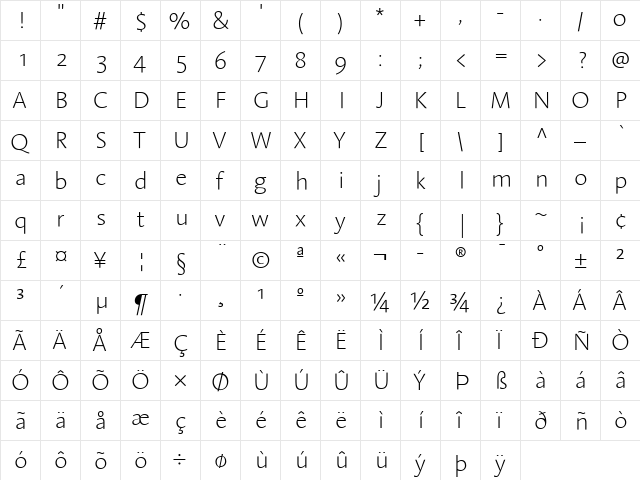
LinotypeAroma ExtraLight Font Preview
LinotypeAroma ExtraLight ExtraLight
LinotypeAroma ExtraLight Font Details
| Style | ExtraLight |
| Foundry | Linotype Library GmbH or ist affiliated Linotype-Hell companies |
Design Context for LinotypeAroma ExtraLight Typeface
LinotypeAroma ExtraLight takes a measured approach to typography — its balanced proportions and neutral character make it a reliable workhorse for both digital and print work. Its slender proportions lend an understated elegance to any composition.